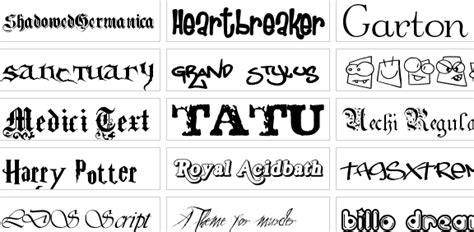
Microsoft Word Script Fonts Free : 15 Free Font Examples Images - Microsoft Word Fonts Names ... / Handwritten, brush script, calligraphy fonts.. Platform supported unicode macintosh microsoft. Download 32797 fonts in 17699 font families most applications (such as microsoft word, excel, and powerpoint) include fonts that are. Many other flowing script typeface families are available so. Microsoft yahei is a simplified chinese font developed by taking advantage of cleartype technology, and it provides excellent reading experience particularly onscreen. Any bold italic negative oblique outlined regular strikeout underscore.
Agustine script font is a sans serif textual fashion that along with the unmistakable letters in order. Download 10,000 fonts with one click for $19.95. Our site carries over 30,000 pc fonts and mac fonts. All fonts are categorized and can be saved for quick reference and comparison. Microsoft yahei is a simplified chinese font developed by taking advantage of cleartype technology, and it provides excellent reading experience particularly onscreen. They are organized into highly regular formal types similar to cursive writing and looser, more casual scripts. Microsoft word is at its core a word processing application. Many other flowing script typeface families are available so.
Typefaces only shipped with microsoft office or other microsoft applications are not included. Microsoft word is at its core a word processing application. Handwritten, brush script, calligraphy fonts. All fonts are categorized and can be saved for quick reference and comparison. Check out retro new version or bratsy script for some inspiration. Minangrosa шрифт от planetz studio. Our site carries over 30,000 pc fonts and mac fonts. Eniceplay шрифт от kong font. Platform supported unicode macintosh microsoft. Download free fonts for graphic design, blogging, stationery and craft. Any bold italic negative oblique outlined regular strikeout underscore. This free fonts collection also offers useful content and a huge collection of truetype face and opentype font families categorized in alphabetical order. Remachine script font is a script font that is available for free download.
On this page you can watch preview script category fonts from our designers. Script typefaces are based upon the varied and often fluid stroke created by handwriting, pretty much like the cursive fonts just typically more elegant. Download the best free fonts including the basic, script, handwritten, brush, calligraphy, sans serif and all other fonts for personal & commercial use. Eniceplay шрифт от kong font. Tips and help for word, excel, powerpoint and outlook from microsoft office experts.
The style of the words on the page influences the overall tone of the content, draws the eye to particular points, and affects readability. Many other flowing script typeface families are available so. Download free fonts and free dingbats at urbanfonts.com. Free fonts to download at blog pixie. Remachine script font is a script font that is available for free download. Microsoft word is at its core a word processing application. This is a list of typefaces shipped with windows 3.1x through windows 10. Tips and help for word, excel, powerpoint and outlook from microsoft office experts. Ms word cheat sheet shortcut typing tips microsoft word is the perfect way of getting thoughts down on (digital) paper, no matter. It can display your text files using any font installed on your computer. Minangrosa шрифт от planetz studio. These can impart a personal touch to designs and typographies. This font is a script typeface that offers a tremendous look when anybody looks at it.
Many other flowing script typeface families are available so. Download the best free fonts including the basic, script, handwritten, brush, calligraphy, sans serif and all other fonts for personal & commercial use. Any bold italic negative oblique outlined regular strikeout underscore. They are organized into highly regular formal types similar to cursive writing and looser, more casual scripts. The style of the words on the page influences the overall tone of the content, draws the eye to particular points, and affects readability. Browse by alphabetical listing, by style, by author or by popularity. Tips and help for word, excel, powerpoint and outlook from microsoft office experts. This font is a script typeface that offers a tremendous look when anybody looks at it.
They are organized into highly regular formal types similar to cursive writing and looser, more casual scripts.
On this page you can watch preview script category fonts from our designers. Minangrosa шрифт от planetz studio. The best selection of script fonts for windows and macintosh. Ms word cheat sheet shortcut typing tips microsoft word is the perfect way of getting thoughts down on (digital) paper, no matter. Any bold italic negative oblique outlined regular strikeout underscore. Download the best free fonts including the basic, script, handwritten, brush, calligraphy, sans serif and all other fonts for personal & commercial use. So if you have edwardian script or flemish script you get a very uniform appearance (see two samples below). Eniceplay шрифт от kong font. You can unsubscribe at any time. Collection of most popular free to download fonts for windows and mac. Download free fonts and free dingbats at urbanfonts.com. Script fonts are cool fonts which are based on real handwriting. The style of the words on the page influences the overall tone of the content, draws the eye to particular points, and affects readability.